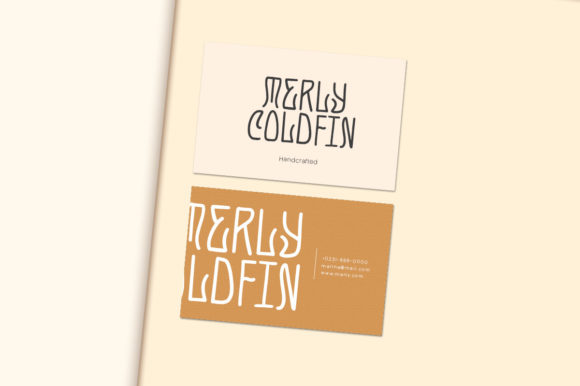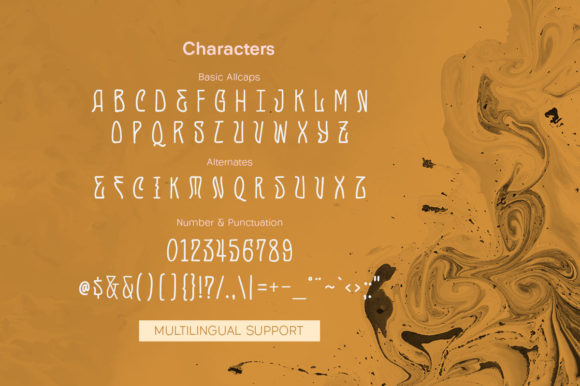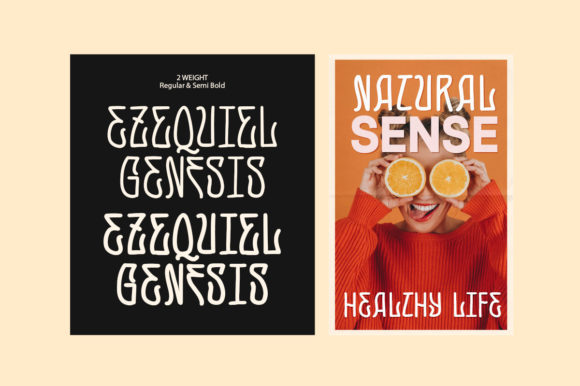
Introduction to Primore Castle Font
The moment when the perfect font comes along and elevates your creative project to the next level – it’s a feeling designers know all too well. Imagine being able to give your logo, title, or invitation a unique touch that sets it apart from the rest. That’s exactly what Primore Castle Font offers.
This wavy, one-of-a-kind display font is perfect for designers who want to add a bit of whimsy to their work. With its free download option, you can start experimenting with Primore Castle Font right away – no need to worry about costly licenses or subscription fees. Whether you’re working on a high-quality novel, designing labels for your products, or creating stationery for your business, Primore Castle Font is an invaluable design resource that’s sure to bring your creative vision to life.
Key Features of Primore Castle Font
- High-quality design for various creative projects, including fantasy, medieval, and RPG themes.
- Transparent background, allowing for easy use on any background or design element.
- Includes a range of glyphs, including uppercase and lowercase letters, numbers, and special characters.
- Designed with a unique, hand-drawn aesthetic, giving it a distinctive look and feel.
Honest Review: Primore Castle Font
As a designer, I’m always on the lookout for high-quality design resources that can elevate my creative projects. The Primore Castle Font is one such resource that caught my attention, and I’m excited to share my honest review with you.
- ✨ Unique and elegant design: The Primore Castle Font has a distinctive, medieval-inspired look that’s perfect for creating a sense of nostalgia and sophistication in your design projects.
- ✨ High-quality glyphs: The font includes a wide range of glyphs, including Latin and Cyrillic characters, making it a versatile choice for various creative projects.
- ⚠️ Limited font sizes: The Primore Castle Font is designed for smaller font sizes, making it less suitable for large-scale headings or titles.
- ⚠️ No transparent background option: While the font itself is great, it doesn’t support transparent backgrounds, which might limit its use in certain design scenarios.
Overall, the Primore Castle Font is a solid addition to any designer’s toolkit. While it may have some limitations, its unique design and high-quality glyphs make it an excellent choice for a variety of creative projects. Just be sure to keep its limitations in mind when choosing it for your next design project.
Primore Castle Font
The Primore Castle Font is a high-quality design resource ideal for creative projects that require a touch of elegance and sophistication. With its transparent background, this font is versatile and can be used in a variety of applications.
To get the most out of the Primore Castle Font, use it in combination with other design elements such as images and graphics. You can also experiment with different font sizes and colors to create a unique look.
The Primore Castle Font is ideal for use in wedding invitations, luxury brand logos, and high-end marketing materials. Its elegant and sophisticated design makes it perfect for creating a premium look and feel.
One of the key benefits of Primore Castle Font is its versatility, making it an ideal choice for a wide range of creative projects. Its transparent background allows for seamless integration with any design, while its free download status makes it accessible to designers of all levels. Whether you’re working on a commercial project or a personal creative endeavor, Primore Castle Font is sure to inspire and elevate your design. We encourage you to download and try it out today and discover the limitless potential of this exceptional font.